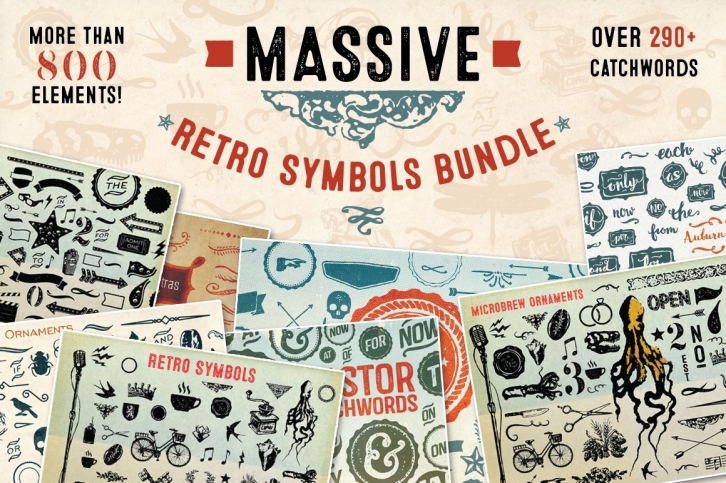
This is a massive collection of pretty much every retro symbol I've ever created, wrapped up in one neat package at a huge discount! Most of the symbols are already textured and have an authentic retro, vintage, letterpress feel perfect for branding and marketing.
Some of these collections have never been sold separately before!!
Included in this package: